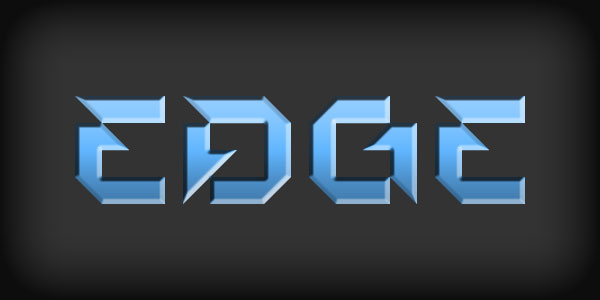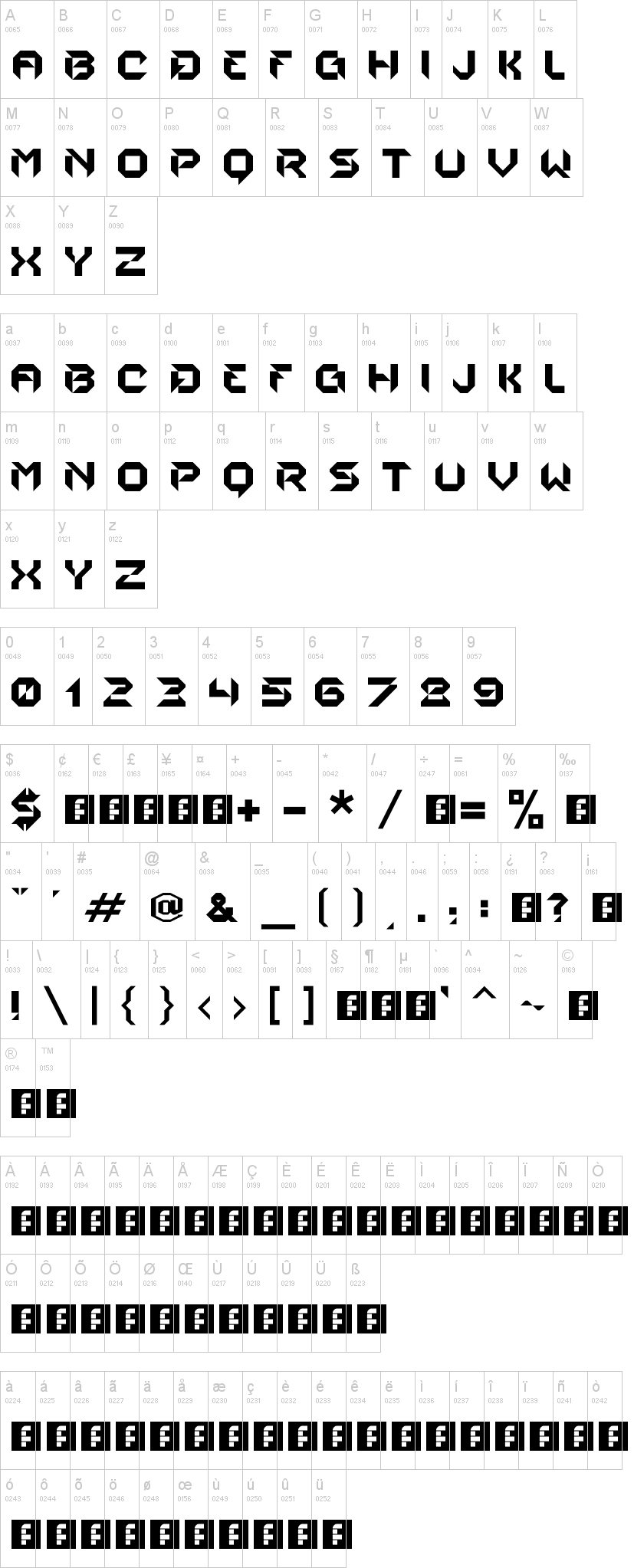
Note of the authorEdge is a minimalist geometric font with hard angles, its as much about the negative space as the positive. Inspired by the theory of cutting metal.